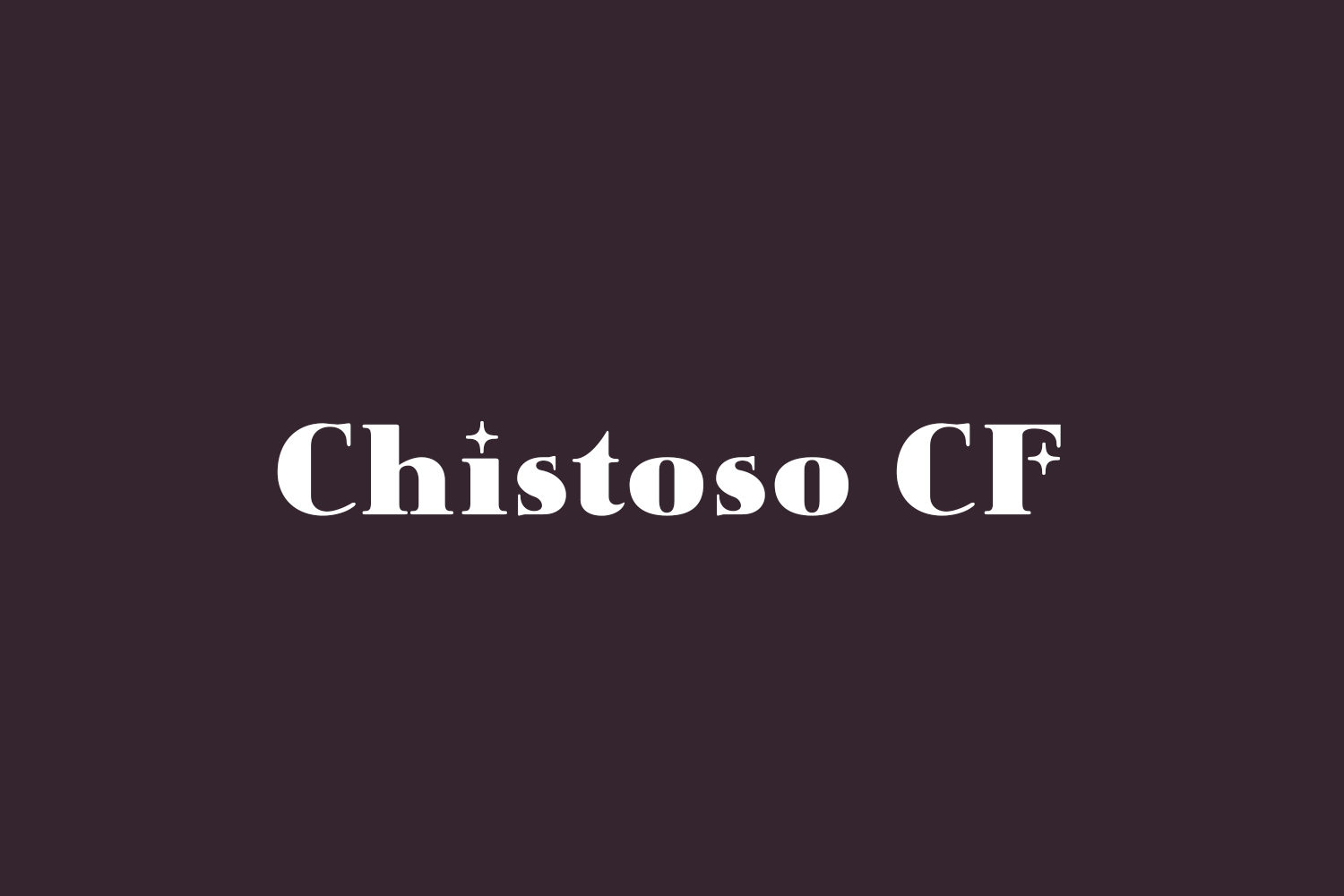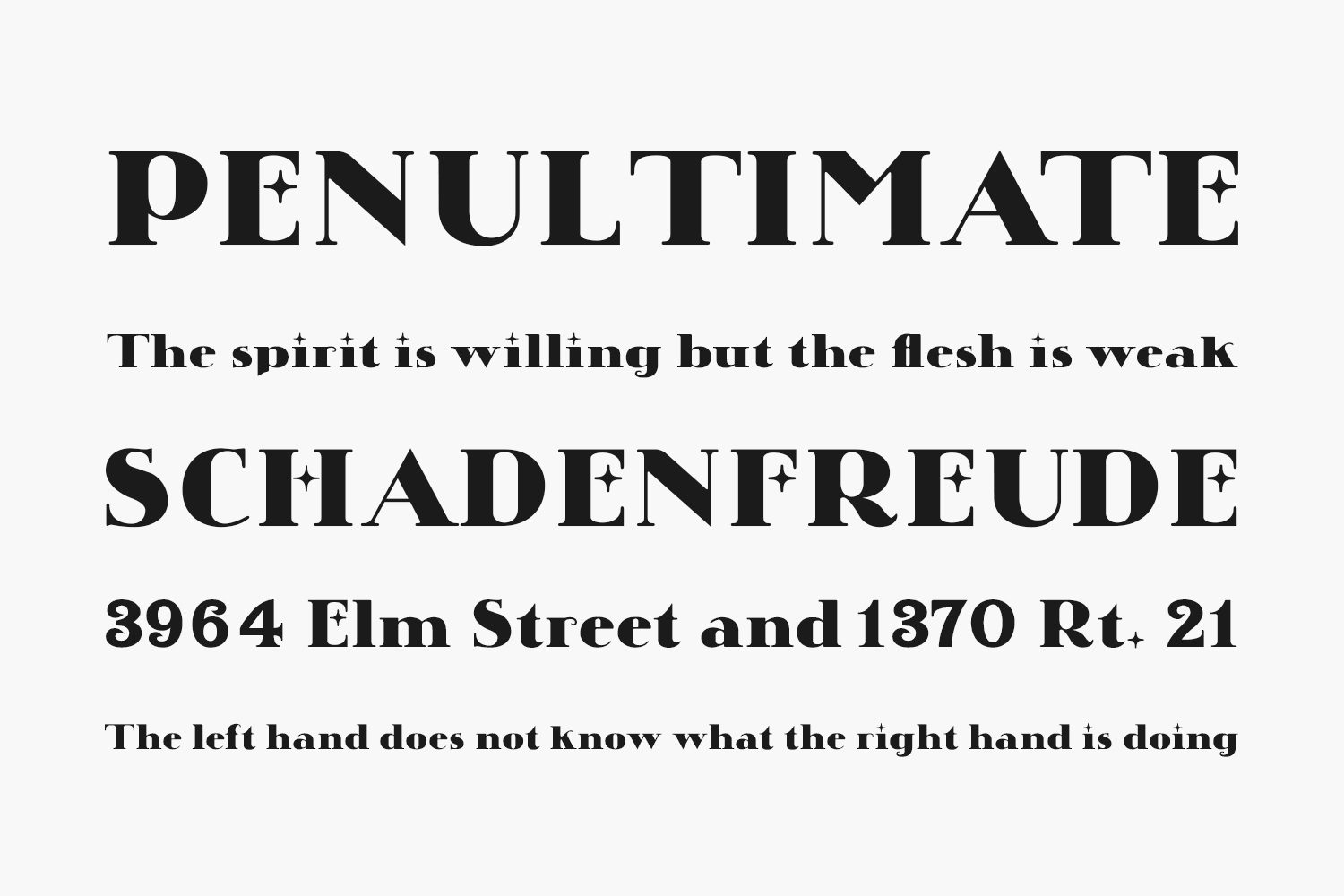
I found its original design in “Hauptprobe in gedrängter Form der bauerschen Giesserei Frankfurt am Main.” (That is, Bavarian Foundry’s Condensed Specimen Book, Frankfurt am Main). No copyright date is provided, but this foundry was established in 1837 according to the title page. However, page 5 states that the Bayern Foundry won the Weltausstellung Brüssel 1910 Grand Prix (World Exhibition, Brussels 1910 Grand Prize). Majestic was published some time after that date, probably before 1920 (Luc Devroye dates it 1914.)
Chistoso CF Free Font is a bold serif display font. Its use of stars and spirals give it a light-hearted and whimsical appearance. Discretionary ligatures abound in CHISTOSO, and there are many useful symbols for example, arrows, currency, manicules, a pilcrow etcetera.